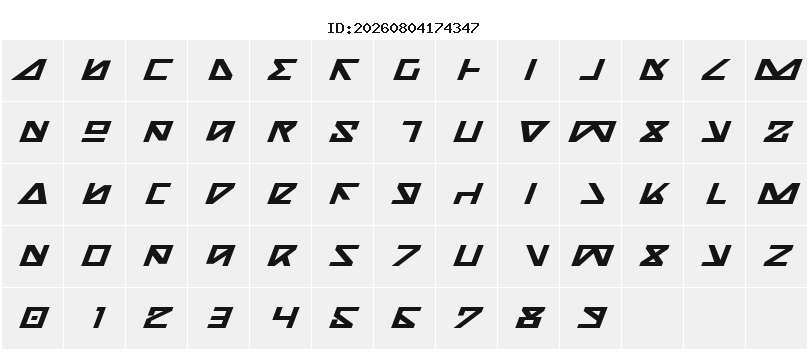
Nick Turbo Bold Expanded Italic Preview
• Font Name: Nick Turbo Bold Expanded Italic
• Font Style: Bold ExpandedItalic
• Font ID: Nick Turbo
• Full Font Name: Nick Turbo Bold Expanded Italic
• PostScript Name: NickTurboBoldExpandedItalic
About Nick Turbo Bold Expanded Italic.ttf
Nick Turbo Bold Expanded Italic.ttf is a modern, elegant sans-serif font designed for ultimate readability and visual harmony. Perfect for branding, headlines, web design, and print materials.